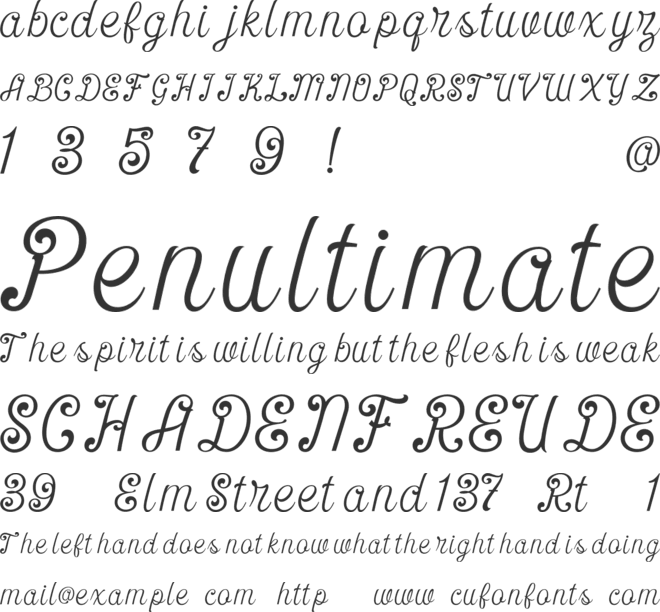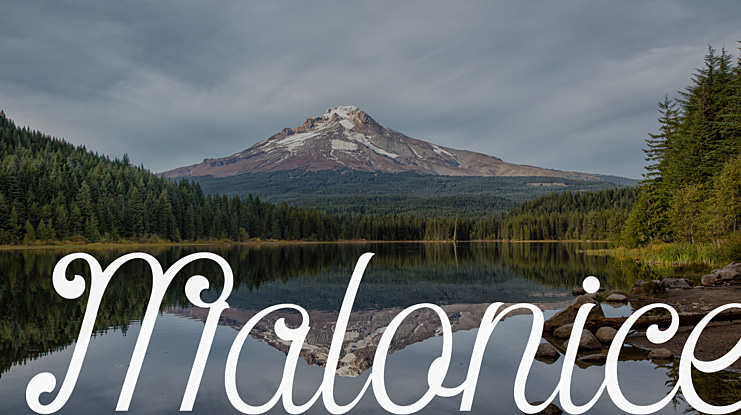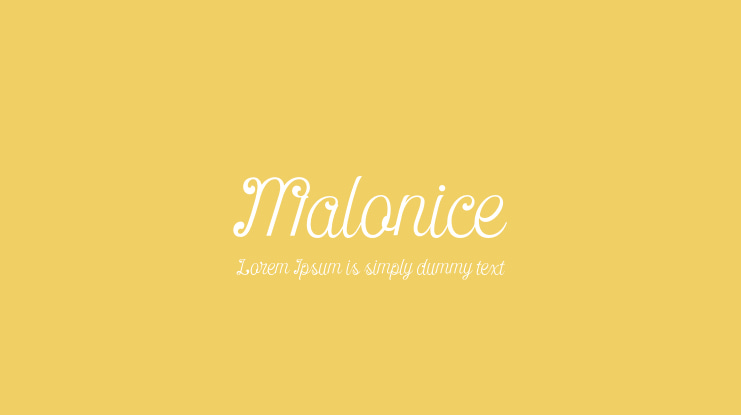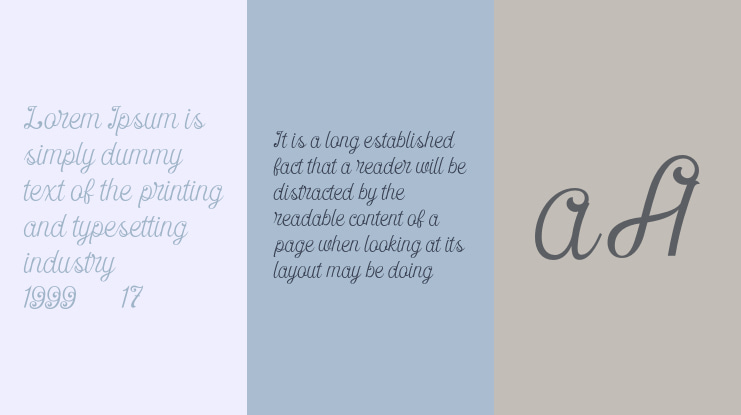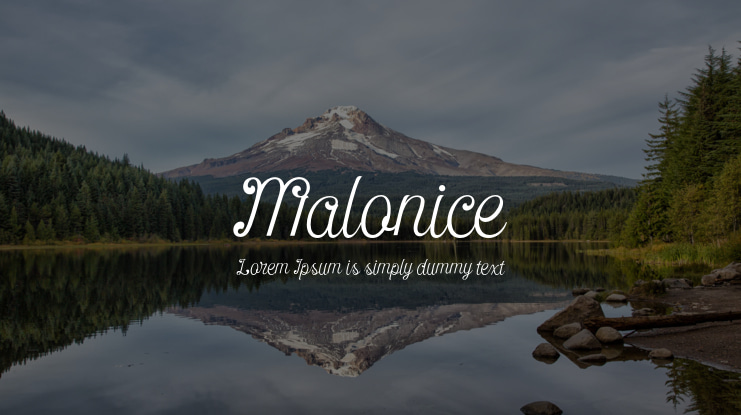
Malonice Font
Malonice Script is a script font that was created based on inspiration from classic handwriting so it looks elegant and luxurious. Complemented with rich Alternate Characters & Standard Ligatures further makes this the perfect font for a variety of purposes. Very easy to use and install in various design-based software. Included in the fonts: